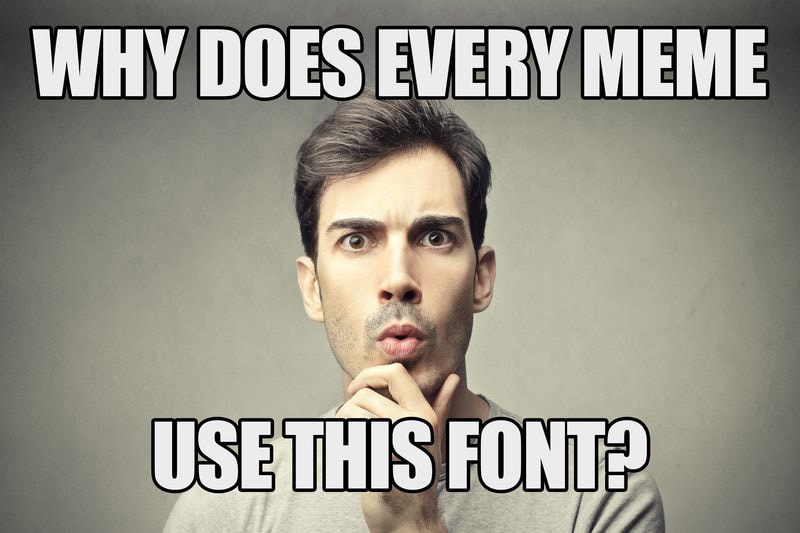
Why Does Every Meme Use the Same Font?
The Internet’s favorite font actually has a long history behind it.
Behind every hilarious meme is its recognizable font — bold, capitalized, in white and outlined with black. The font is called “Impact,” and has a rich history. It’s actually one of the core fonts of the internet and was originally created back in 1965, made by Geoff Lee using hand-cut metal. Famous for its legibility over images, it was the ideal font for memes. Not only that, but it was impactful. Head over to vox to read its entire expose on the much-loved font and its journey into the depths of the interwebs.
As the digital age began, Impact got key placement thanks, in part, to the dissolution of the firm that commissioned the typeface. Impact was Stephenson Blake’s second-to-last typeface. As the firm slowly shifted its focus away from type, it divvied up digital rights among former competitors. Impact ended up in the hands of Monotype. Monotype, in turn, licensed key fonts to Microsoft.
The lead for Impact built off a key decision in 1996, when Impact became one of the “core fonts for the web” — a Microsoft-curated attempt at a standard font pack that would work across the internet. Impact built off that lead when it was included in the market-dominating Windows 98 operating system, while some close competitors weren’t. Though Arial Black and the much-maligned Comic Sans provided some competition, neither was quite as legible over images.